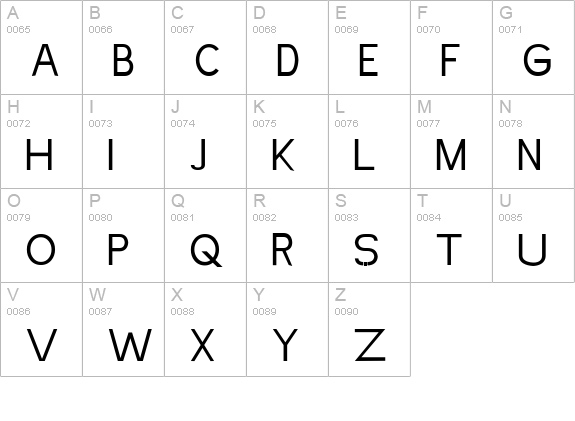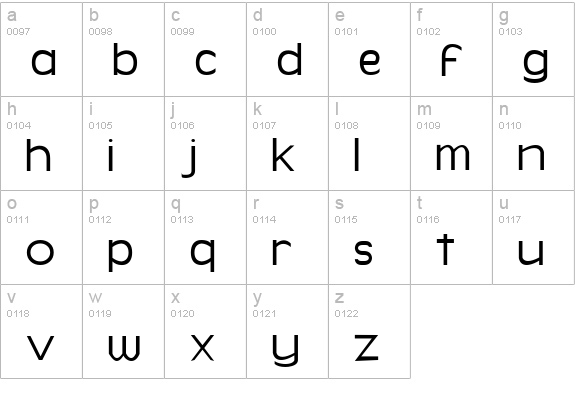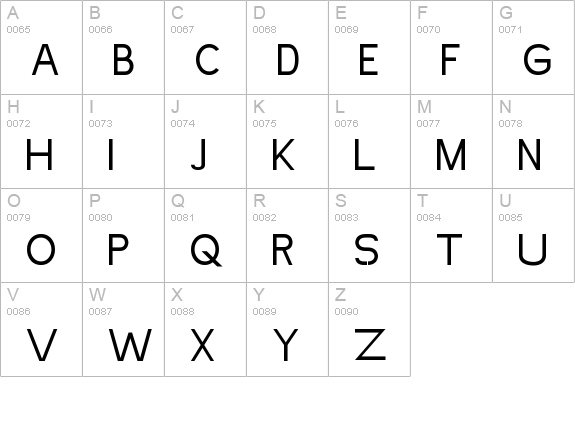
Simpleman Font Details
Simpleman font is a stunning and versatile typeface that exudes simplicity and elegance. With its clean lines and streamlined design, it is perfect for a wide range of projects, from branding and logo design to packaging and website headers. The beauty of Simpleman font lies in its ability to effortlessly convey a sense of sophistication and sophistication, while maintaining a timeless and classic aesthetic. Its minimalist and uncluttered appearance allows the text to take center stage, making it highly legible and easy to read across various mediums. But what truly sets Simpleman font apart is its accessibility. It is freely available to download at FontsMarket.com, allowing designers and creatives to incorporate this exceptional font into their projects without any hurdles. This means that anyone, from professional designers to hobbyists, can enjoy the benefits of Simpleman font and elevate their designs to new heights. Whether you are working on a corporate identity project, designing a sleek and modern website, or creating eye-catching packaging for your products, Simpleman font has got you covered. Its versatility and adaptability make it a go-to choice for a wide range of design needs. So why wait? Download Simpleman font today from FontsMarket.com and unleash your creativity with this incredible free typeface.